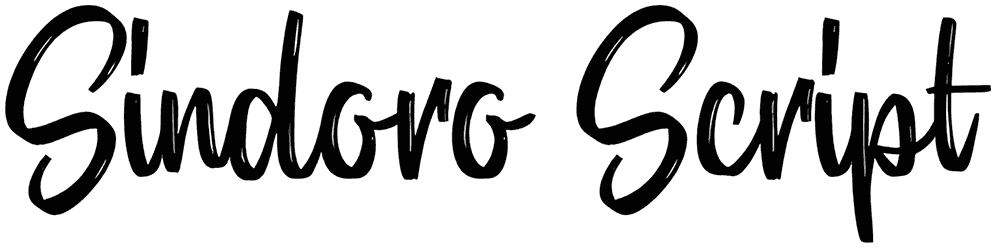
Sindoro Script Font
Sindoro Script font is another handwritten font that we introduced to you today. This script font, with the combination of small and large characters, can have a lot of variety for your designs.
Considering that it is a little illegible so you should be careful not to use it in small dimensions or in designs that require an elegant theme. We suggest you use this brush font to design flyers for martial arts classes, t-shirts, and many girly themes.